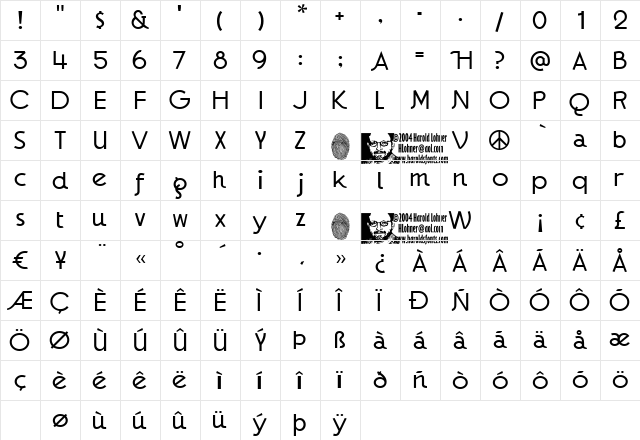
GaumontLight Regular
Design Context for GaumontLight Typeface
GaumontLight offers clean, dependable letterforms without strong stylistic allegiance, making it a practical choice for designers who need flexibility. Its slender proportions lend an understated elegance to any composition.